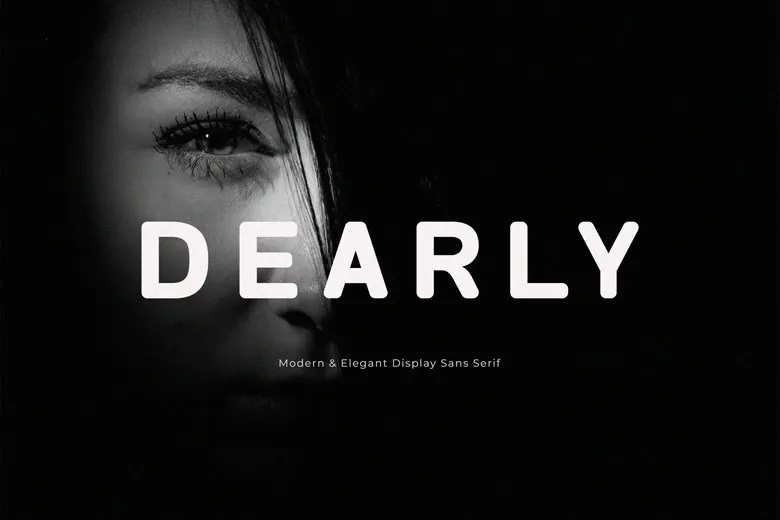
Dearly Font
Dearly is a new modern sans serif typeface, best used as a display for headings, logos, branding, magazines, product packaging and invitations. Dearly will add that little bit extra certainty and class to any project with their clean and smooth lines.
Dearly Sans Serif Font